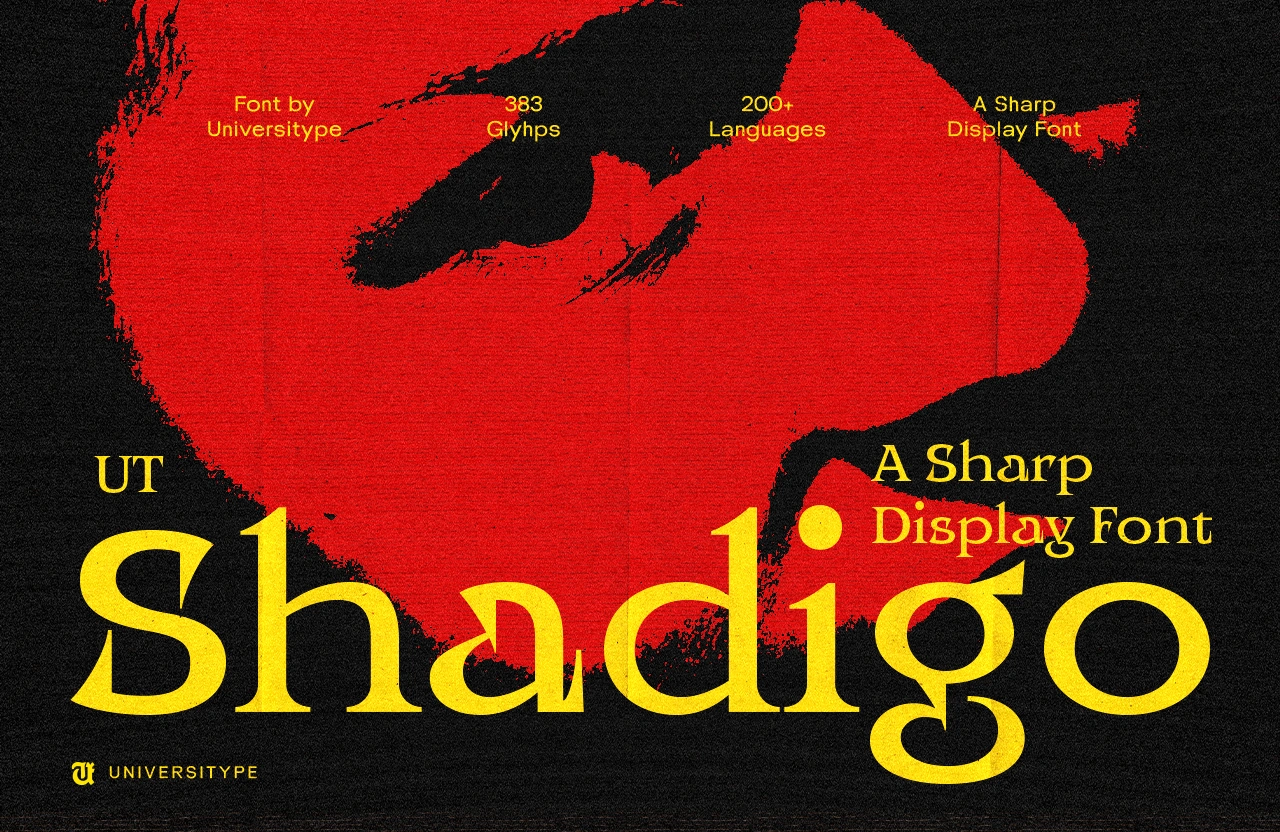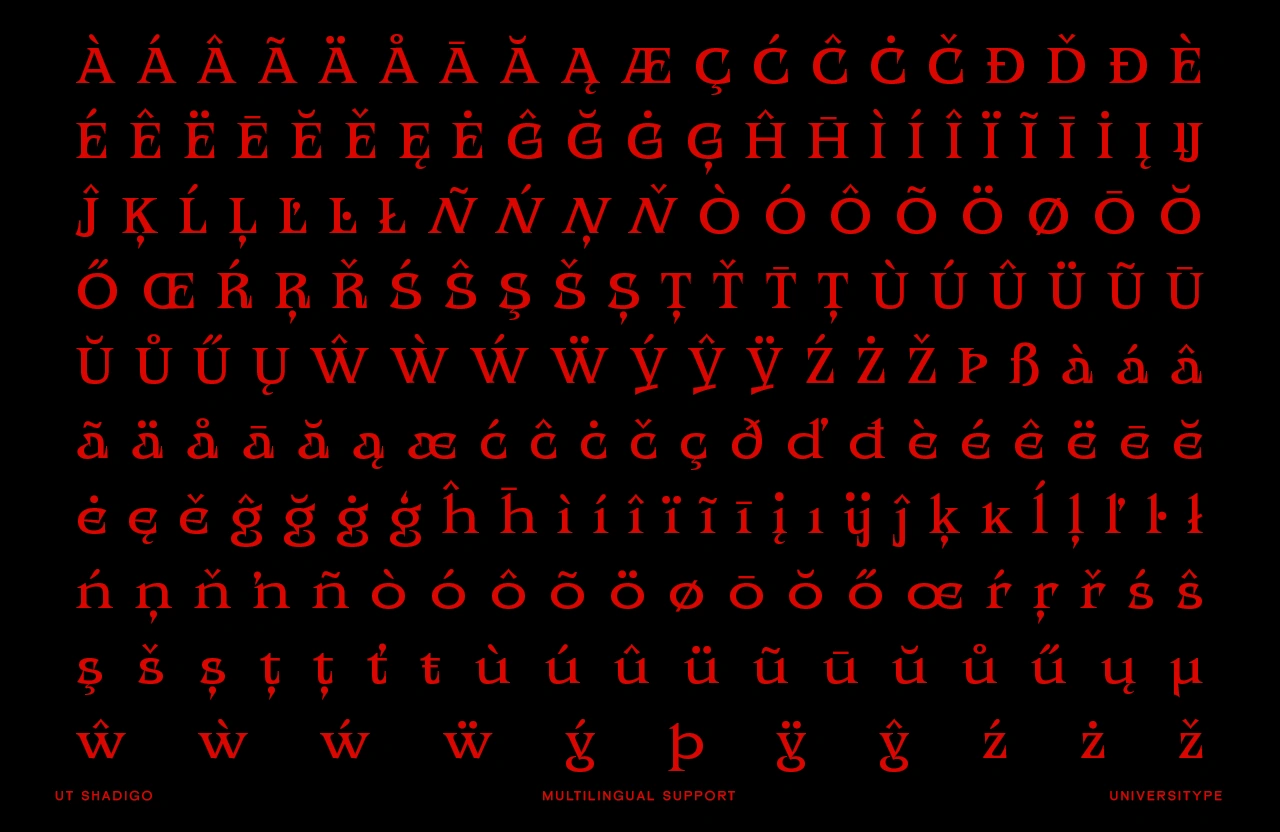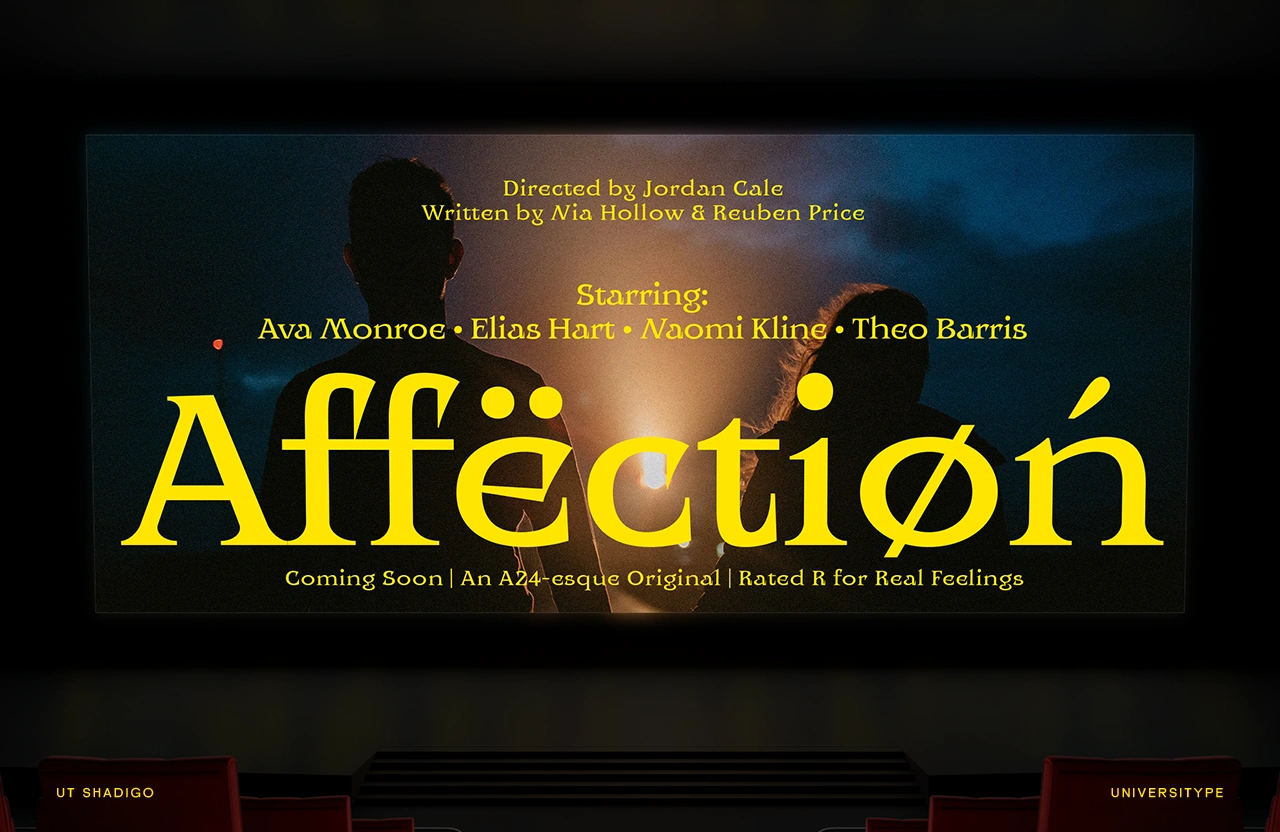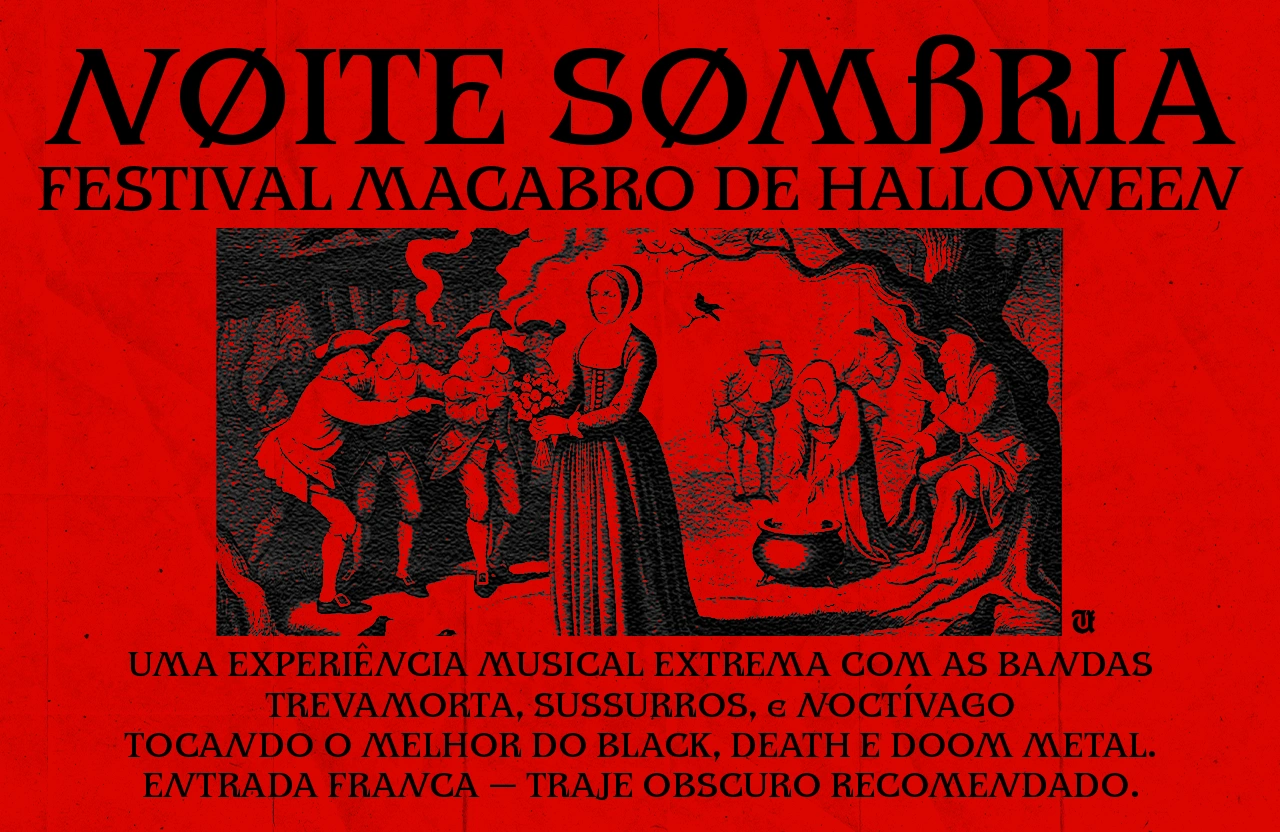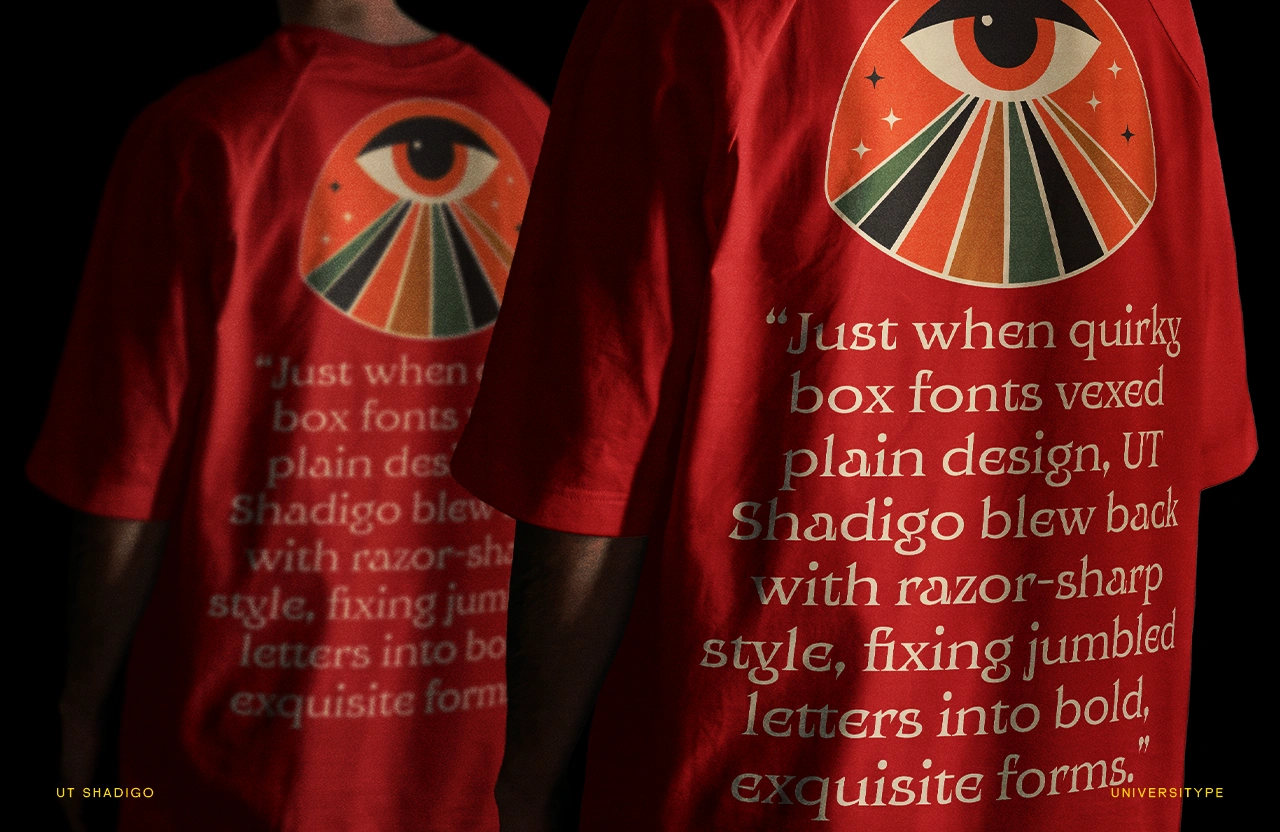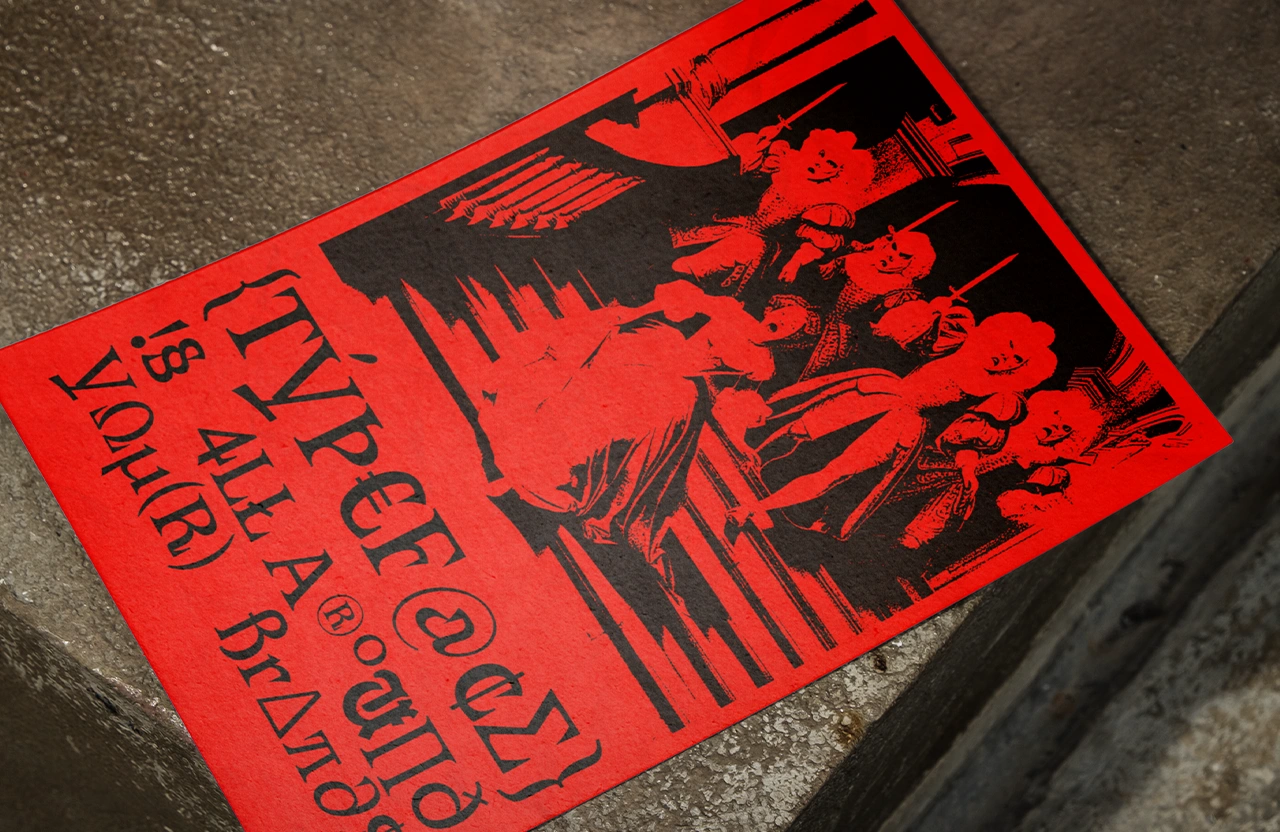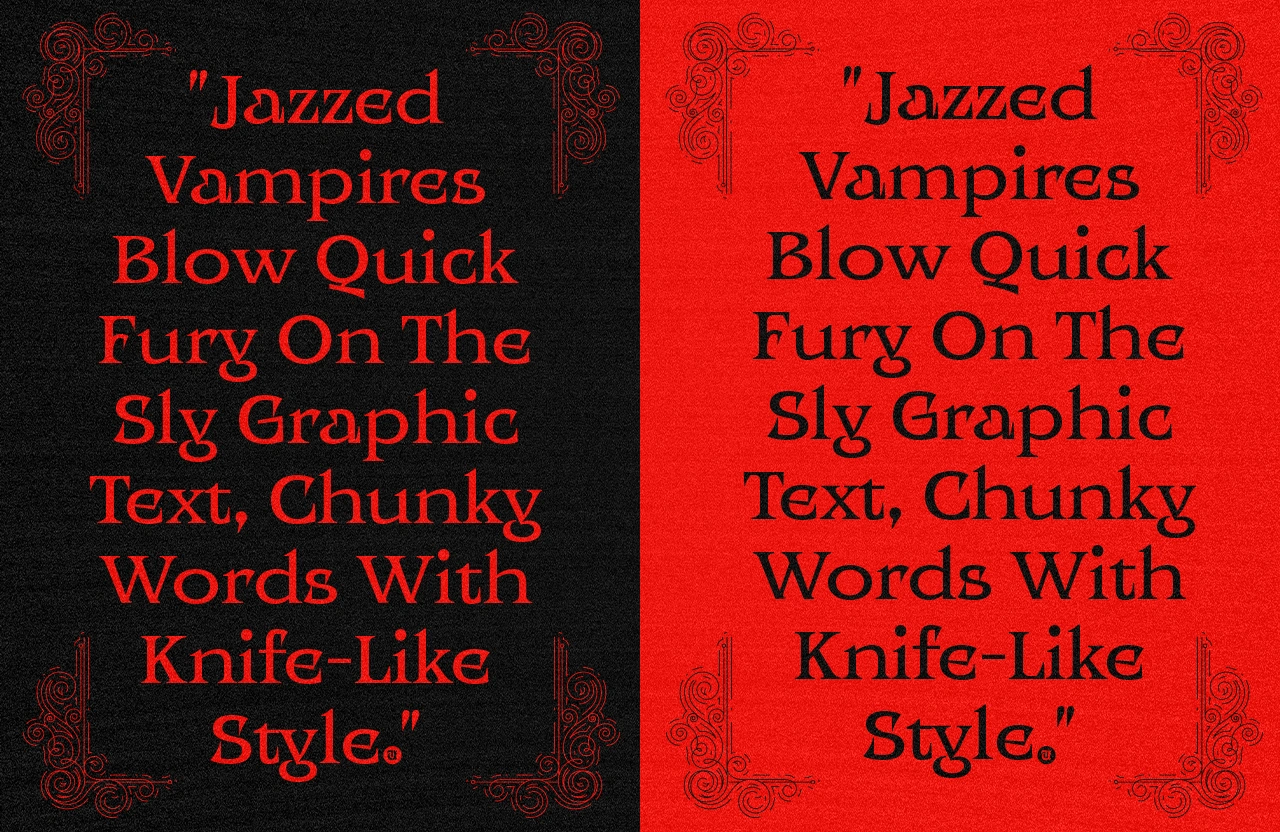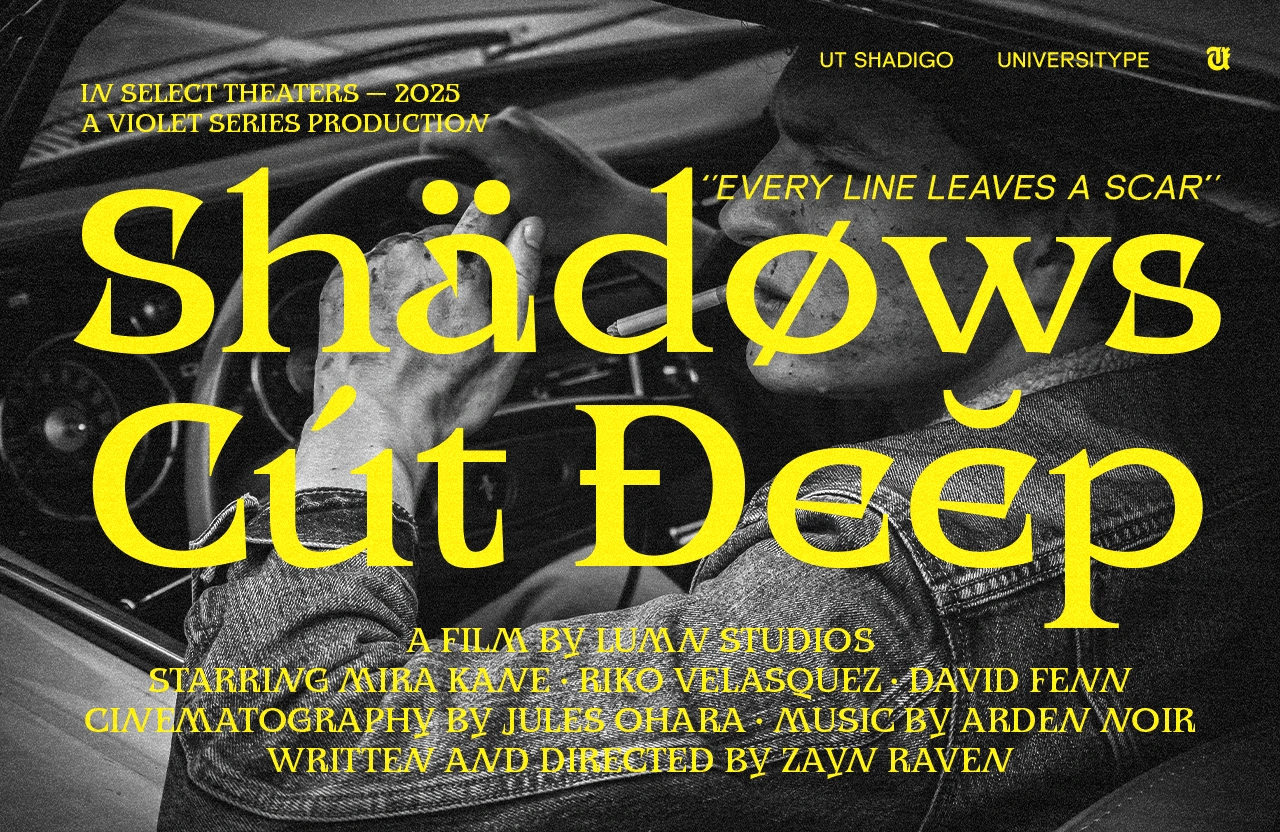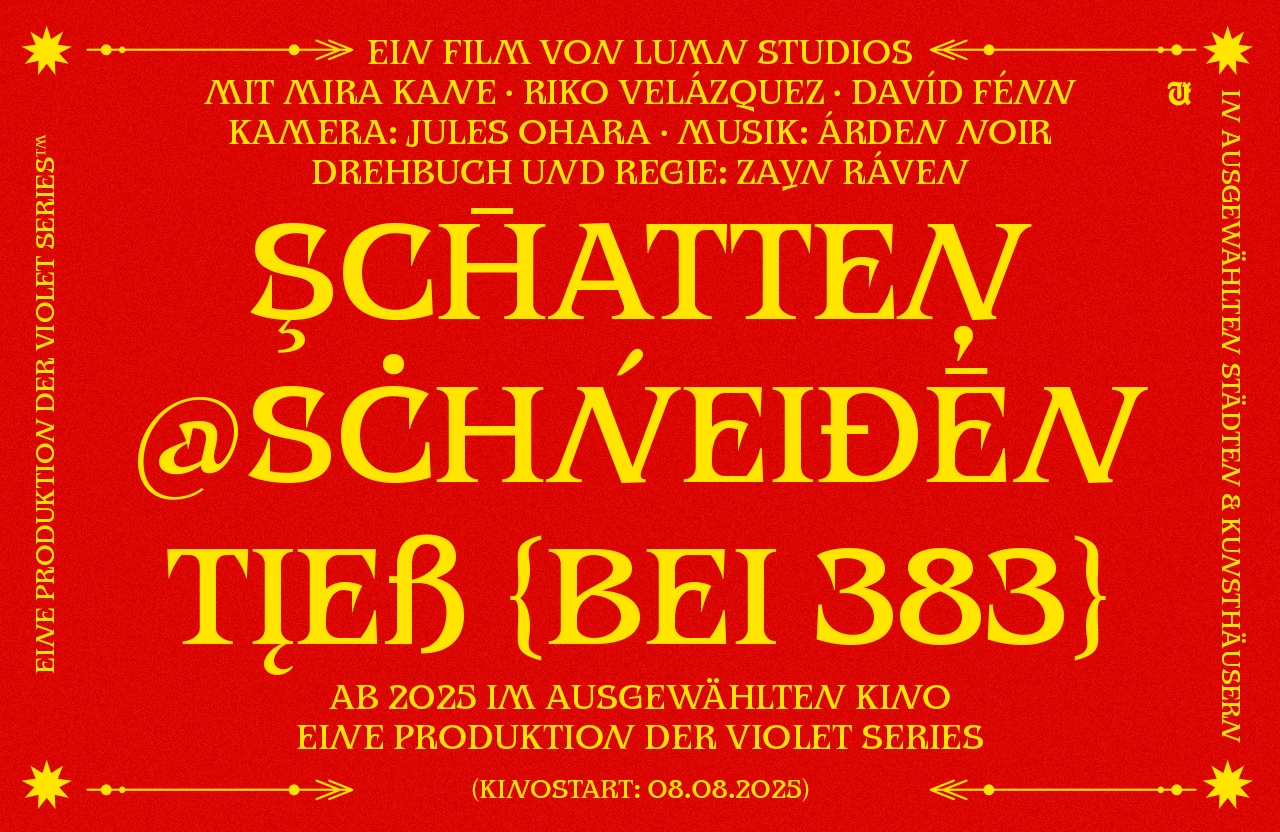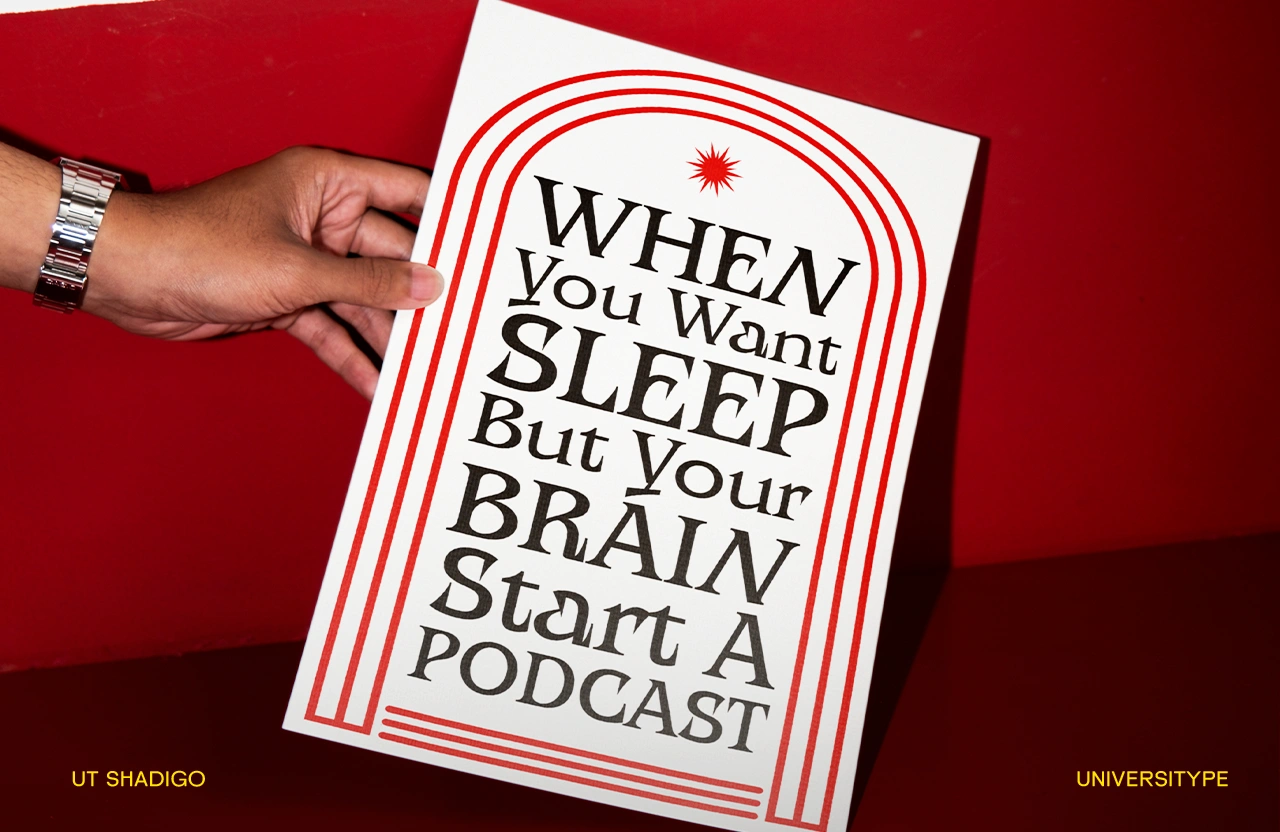
UT Shadigo
UT Shadigo brings contrast and confidence into every letter it touches. It’s a typeface that knows exactly who it is—sleek, sharp, and just a little rebellious. The bold strokes and unexpected angles give it an edge, but there’s a softness that keeps it grounded. Perfect for designers who want to make a statement without shouting. Shadigo is one of those fonts that feels like it belongs in a city at dusk—modern, moody, a little mysterious. Whether it’s a poster, a brand, or editorial work, it commands attention and keeps it there.
UT Shadigo – A Sharp Display Font
UT Shadigo brings contrast and confidence into every letter it touches. It’s a typeface that knows exactly who it is—sleek, sharp, and just a little rebellious. The bold strokes and unexpected angles give it an edge, but there’s a softness that keeps it grounded. Perfect for designers who want to make a statement without shouting.
Shadigo is one of those fonts that feels like it belongs in a city at dusk—modern, moody, a little mysterious. Whether it’s a poster, a brand, or editorial work, it commands attention and keeps it there.
Target Audience:
UT Shadigo is for creatives who don’t settle for safe. Think branding agencies, fashion labels, music artists, editorial designers, and anyone looking to inject attitude and sophistication into their visuals.
Key Features:
• Strong contrast with clean, geometric structure
• Sharp terminals paired with subtle curves
• Balanced letterforms for both uppercase and lowercase
• Stylish ligatures that add personality
• Unique alternates for added customization
• Latin-based multilingual support
Inspiration Behind UT Shadigo Design:
UT Shadigo was born from the contrast of steel and shadow—hard lines softened by light. It was inspired by modern architecture, twilight cityscapes, and the confidence of street fashion. The goal? A font that feels powerful but never stiff. It’s that blend of elegance and edge that gives Shadigo its charm.
Usage Suggestions:
• Branding and logo design for fashion, beauty, and lifestyle labels
• Editorial layouts that need a visual hook
• Posters, album covers, and social media graphics
• High-impact headlines for websites or campaigns
• Packaging with a modern, stylish feel
Technical Details:
• Character set: A–Z, a–z, numerals, punctuation, symbols
• Stylistic alternates and ligatures included
• Supports Western and Central European languages